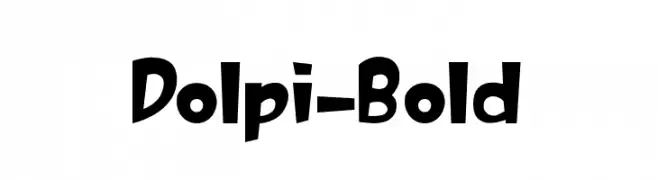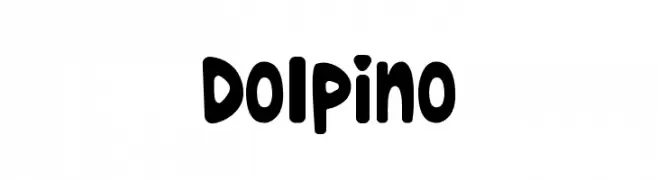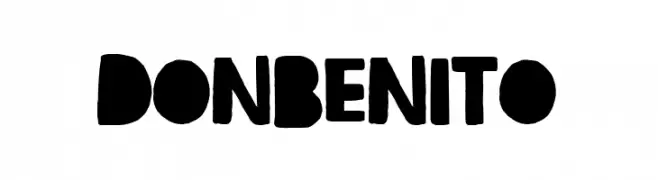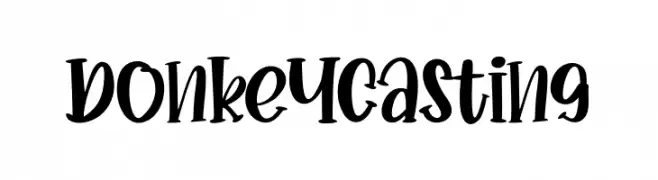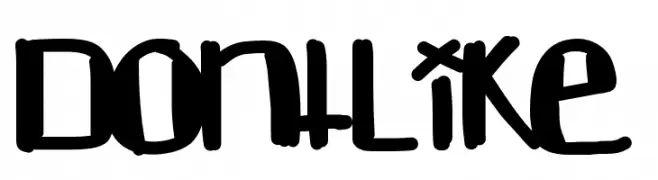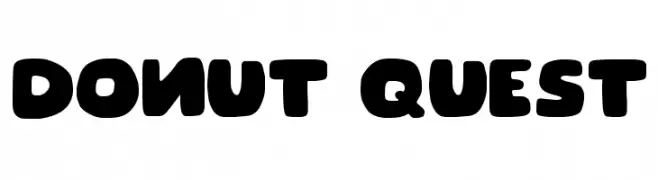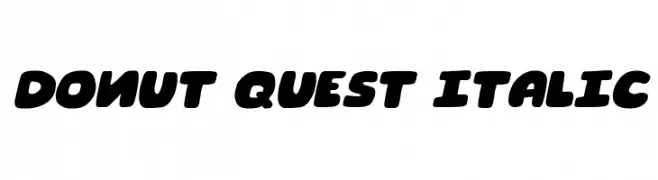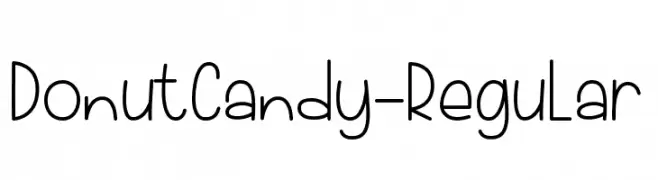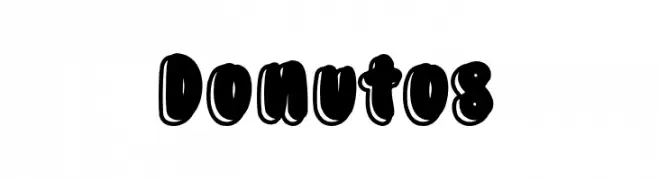
A bold, playful font with exaggerated curves and angles.
A playful, bold font with rounded, thick strokes and a friendly appearance.
A bold, playful font with a hand-drawn, irregular style.
A playful, bold, and hand-drawn style font with rounded strokes.
A bold, playful handwritten font with thick strokes and quirky shapes.
A playful, bold font with rounded, chunky letters perfect for fun and whimsical designs.
A playful, bold, and slightly slanted font with rounded edges.
A playful, handwritten font with a casual and friendly appearance.
A playful, bold font with a donut-like, three-dimensional appearance.